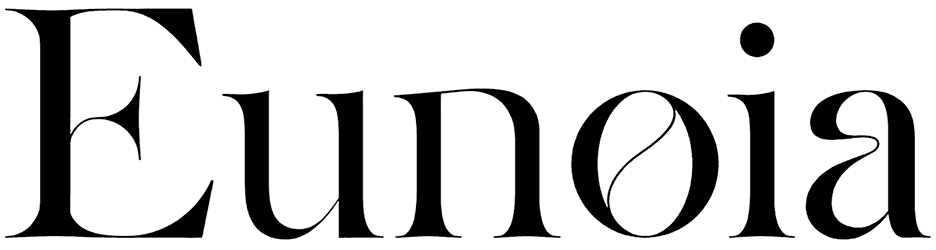
Eunoia Font
The first thing your audience notices about your typography is nothing except appropriate font, so try to get exclusive ones in today’s RB catalog. Opt for Eunoia, a luxury font to keep you closer to your writing purposes.
This serif font with a delicate curly edge engages many designers to use it subsequently in developing invitations, cosmetic brands, and posters to see its extraordinary effect. The number lacking doesn’t make trouble in ornamenting your artwork and induces retro emotions.